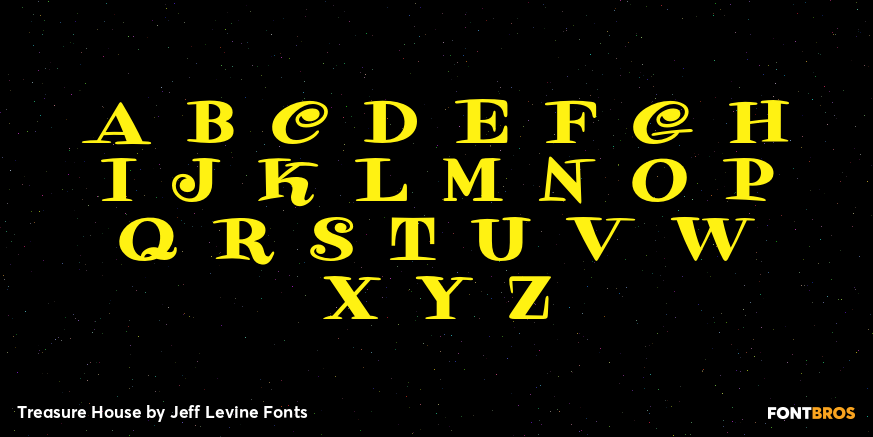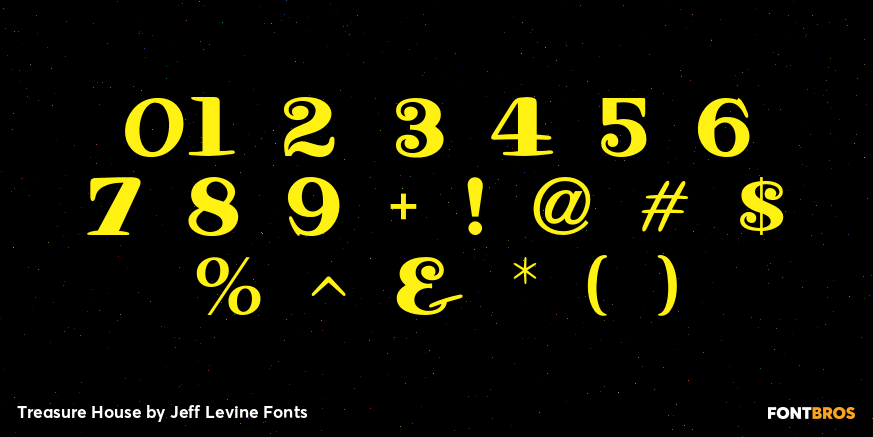
Treasure House
Inspired by the hand lettered title on the cover of a mid-1950s comic book [based on the beloved children's TV host Captain Kangaroo], Treasure House JNL is a casual, playful serif font available in both regular and oblique versions.
From 1955 through 1984, the late Bob Keeshan brought the gentle Captain into the living rooms of eager youngsters who were both taught and entertained each weekday morning.